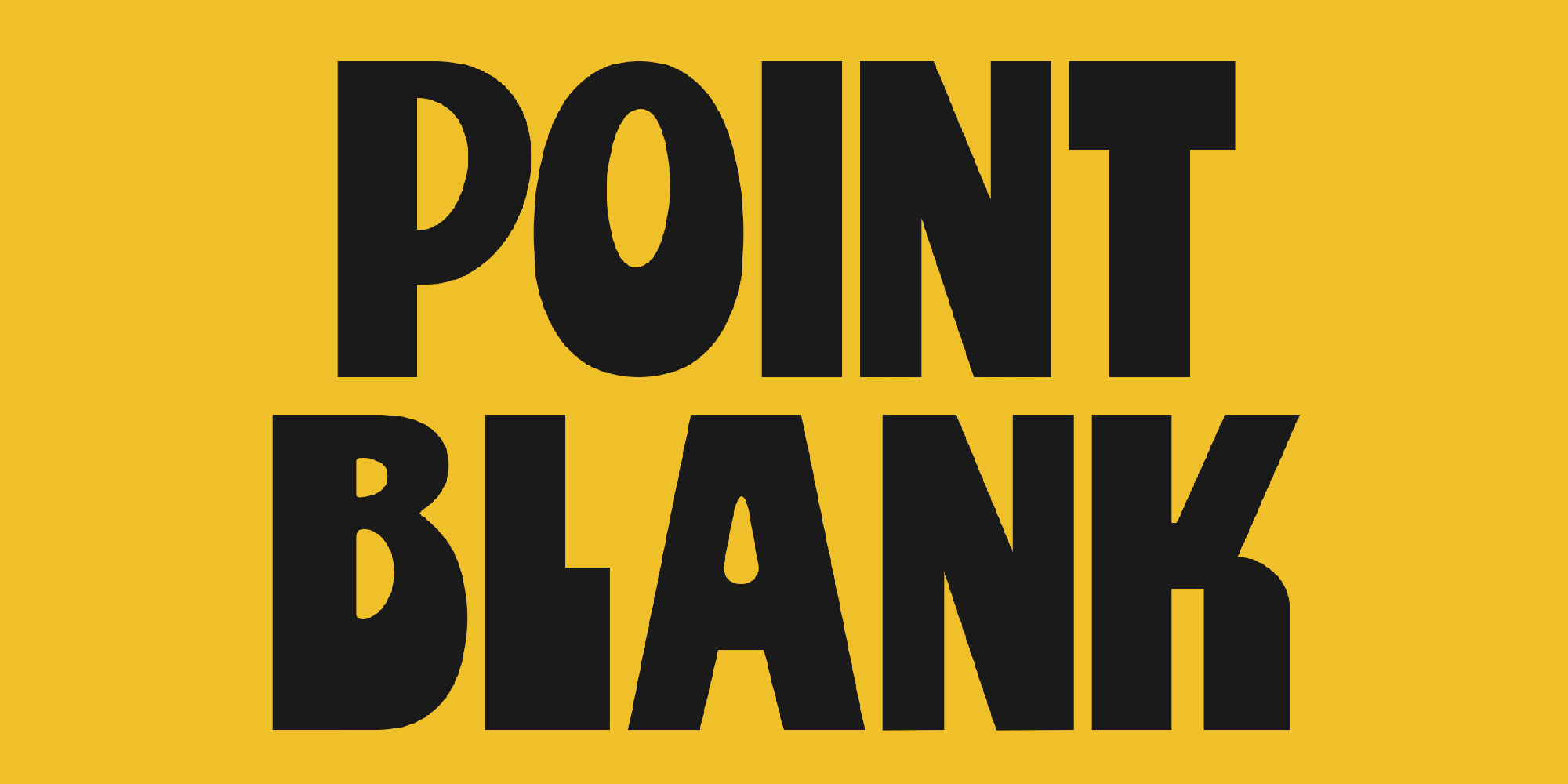
The Point Blank Font excels in various design applications including tactical military branding, strategic defense communications, precision shooting sports marketing, direct security service materials, sharp tactical gear packaging, decisive law enforcement identities, focused training academy promotions, tactical equipment signage, precision-focused event materials, and strategic military projects that demand tactical precision and point-blank sophistication.
What makes the Point Blank Font exciting is its decisive embodiment of tactical precision and direct military efficiency through letterforms that capture the essence of focused accuracy and the unwavering determination of tactical operations. This typeface demonstrates exceptional sharpness through carefully engineered characters that suggest the precise targeting of tactical systems, the direct approach of military communications, and the focused intensity that makes tactical operations so strategically effective and operationally reliable. The font's tactical personality makes it perfect for military organizations and tactical equipment companies seeking to communicate strategic precision, operational excellence, and the kind of direct effectiveness that creates successful tactical outcomes through typography that literally targets with point-blank accuracy.
The Point Blank Font family typically includes tactical weight variations that enhance the military aesthetic, featuring sharp styling options and extended character sets optimized for tactical communications and military applications. These family options often include precision-inspired alternates, tactical symbols, and strategic decorative elements that provide designers with comprehensive tools for creating authentically tactical typography that celebrates military precision while maintaining contemporary design appeal and tactical credibility.
Military professionals and tactical equipment organizations consistently select Point Blank Font Free Download for projects requiring typography that communicates tactical authenticity and military precision. This typeface delivers exceptional performance in military marketing, tactical branding, and strategic communications where establishing credibility and demonstrating operational expertise is essential for tactical effectiveness. The font's precision character makes it particularly effective for training and equipment applications. Download Point Blank Font Free Download today to access this tactically precise typeface that transforms military communications with its strategic elegance and tactical sophistication, creating compelling operational experiences that honor the magnificent precision of tactical operations while celebrating the direct effectiveness that defines authentic military excellence and strategic tactical achievement.